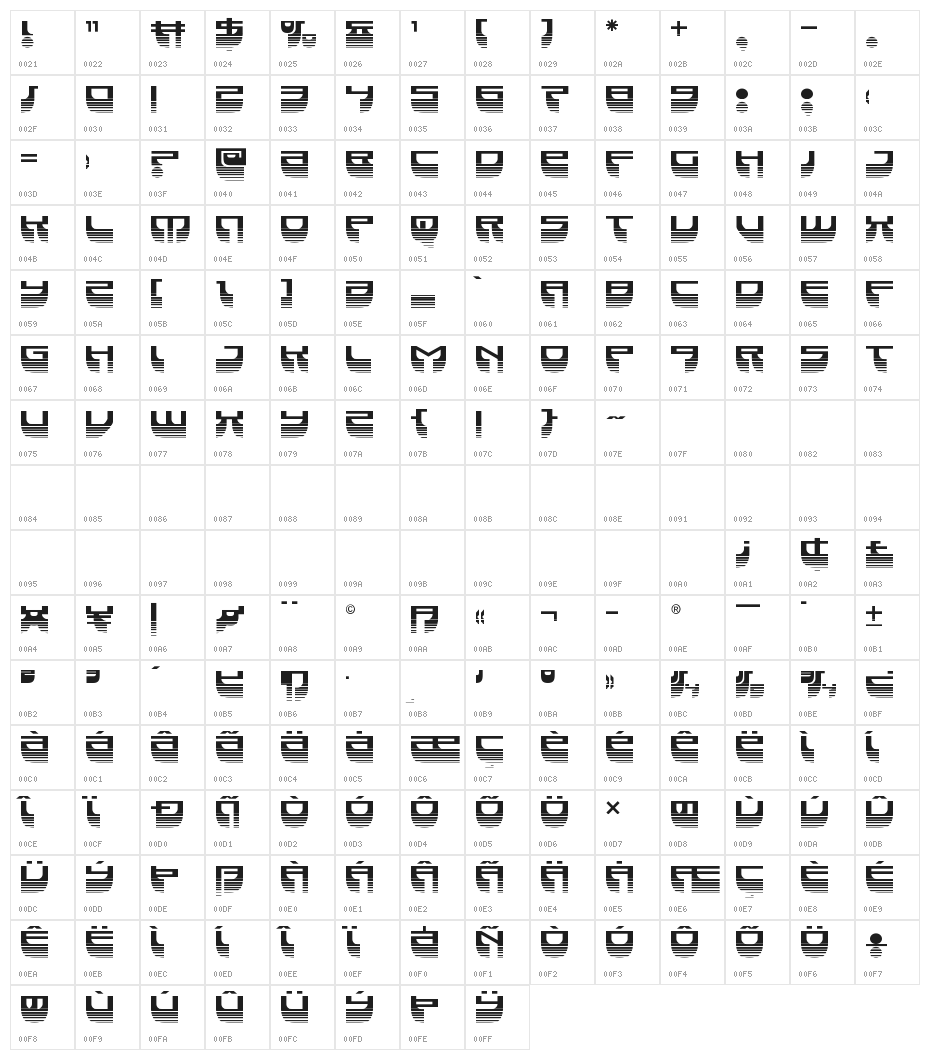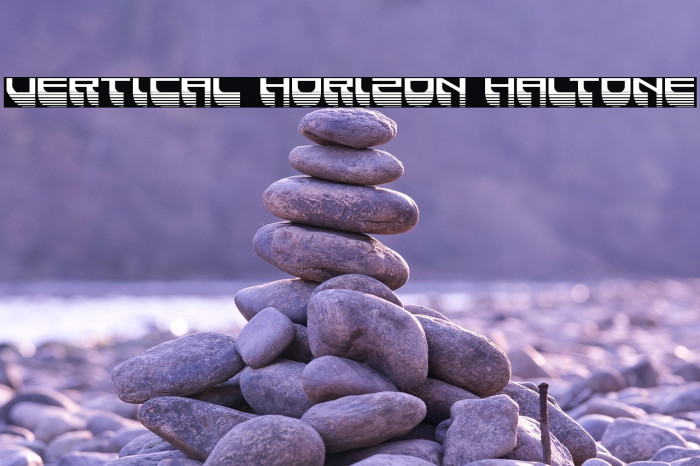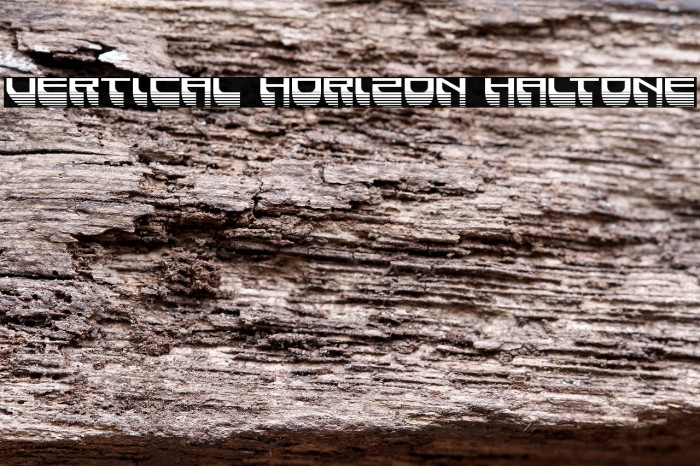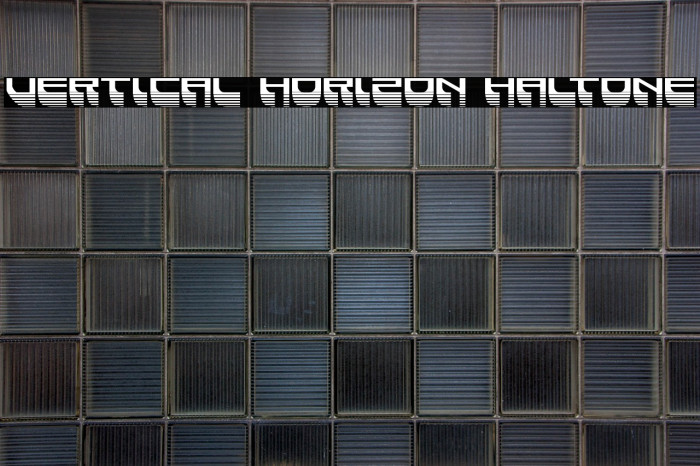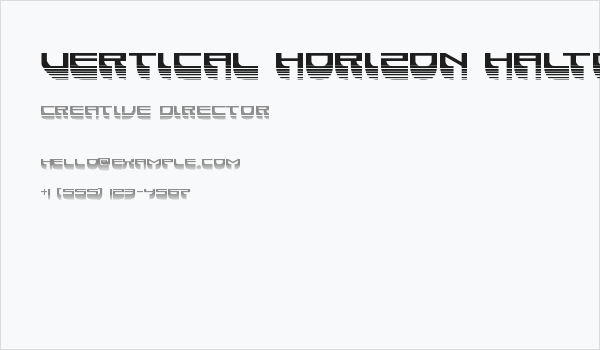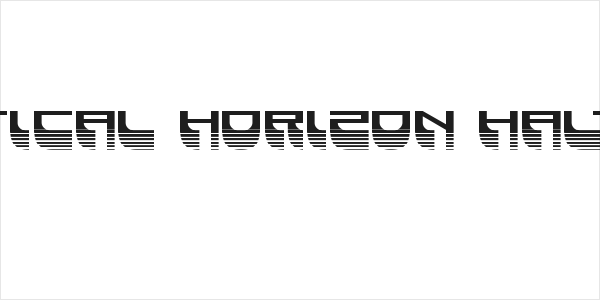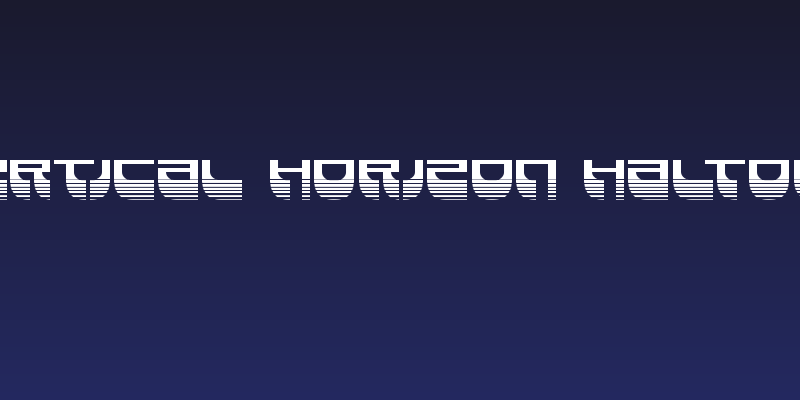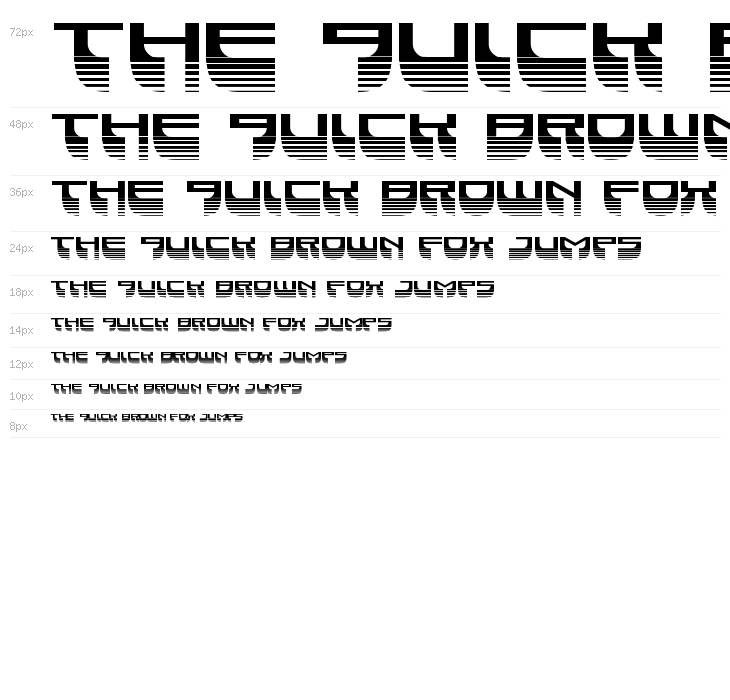
Vertical Horizon Haltone Font
Vertical Horizon Haltone Description
This font features a unique, futuristic design characterized by horizontal lines that create a halftone effect across each character. The letters are bold and geometric, with a distinct digital aesthetic that makes them stand out. The consistent use of parallel lines gives the font a sense of movement and rhythm, while the solid portions of each character ensure legibility. This style is particularly eye-catching and would be suitable for projects that require a modern, tech-inspired look. The font maintains a uniform width across all characters, contributing to a cohesive and structured appearance.
| Proposed Projects | Ideal for digital art, tech branding, video game titles, and sci-fi themed designs. |